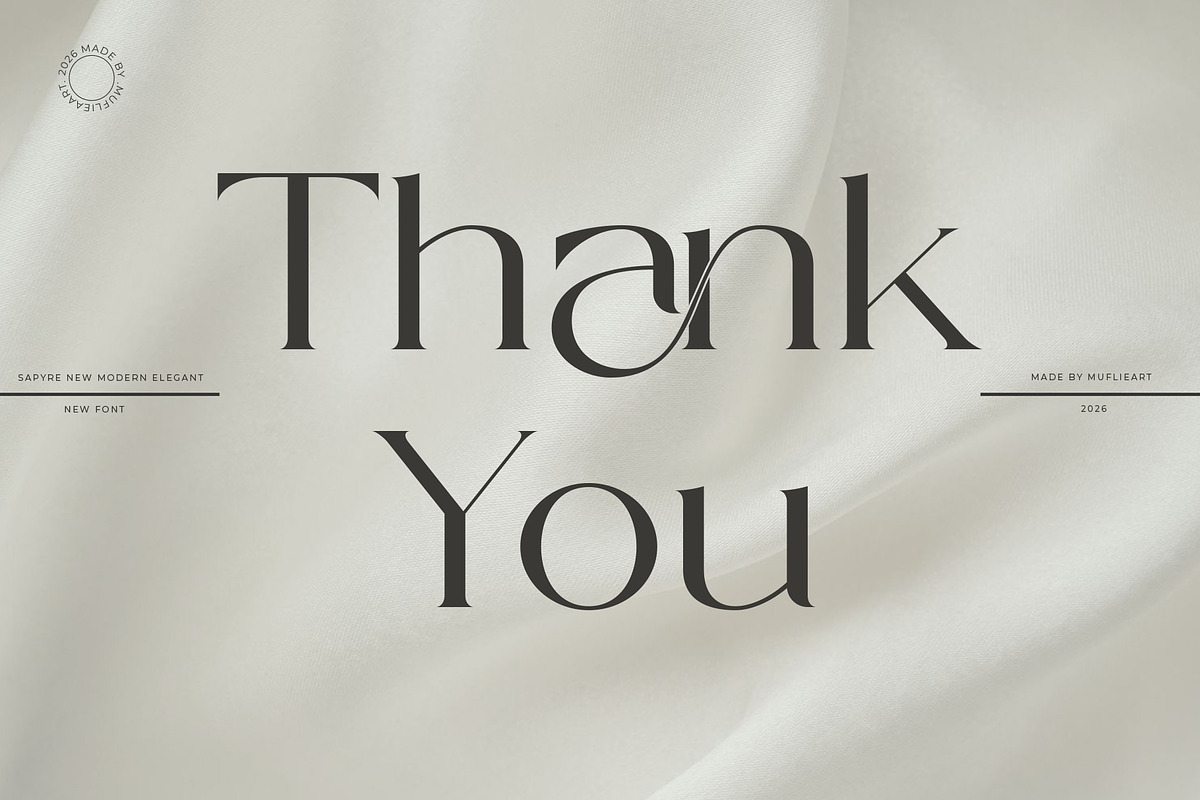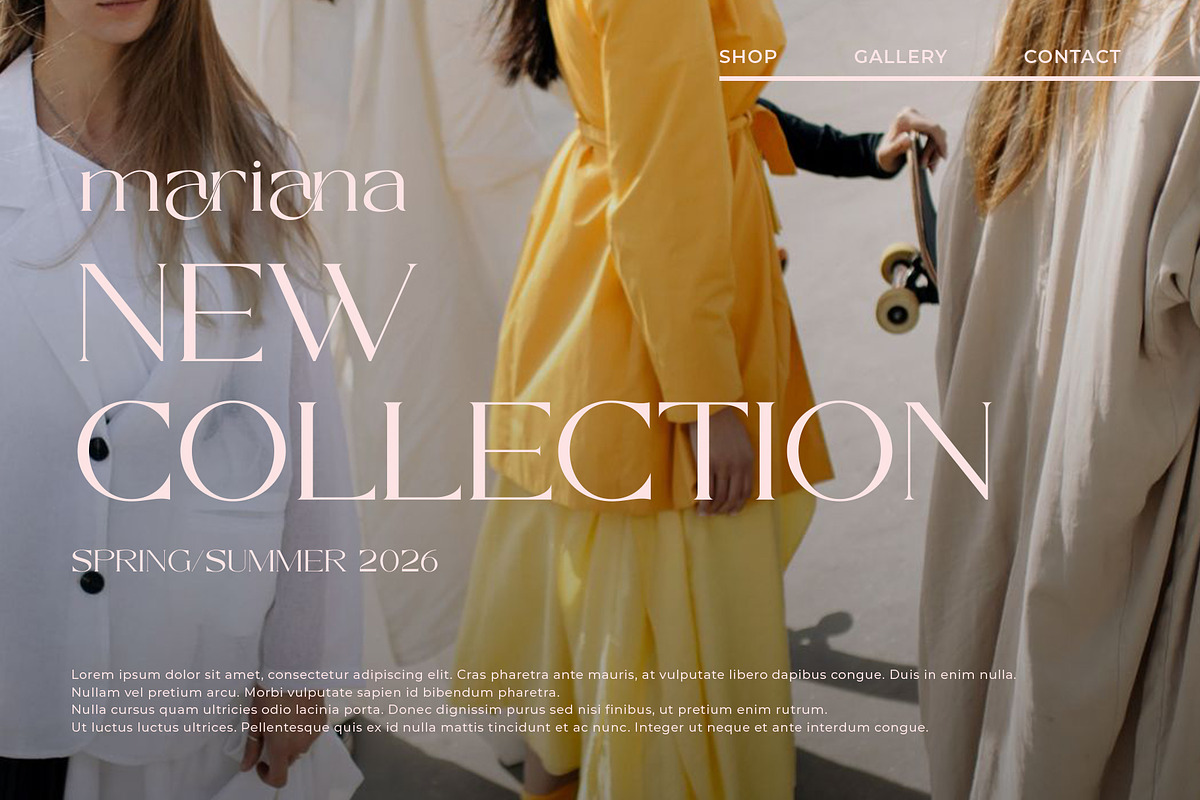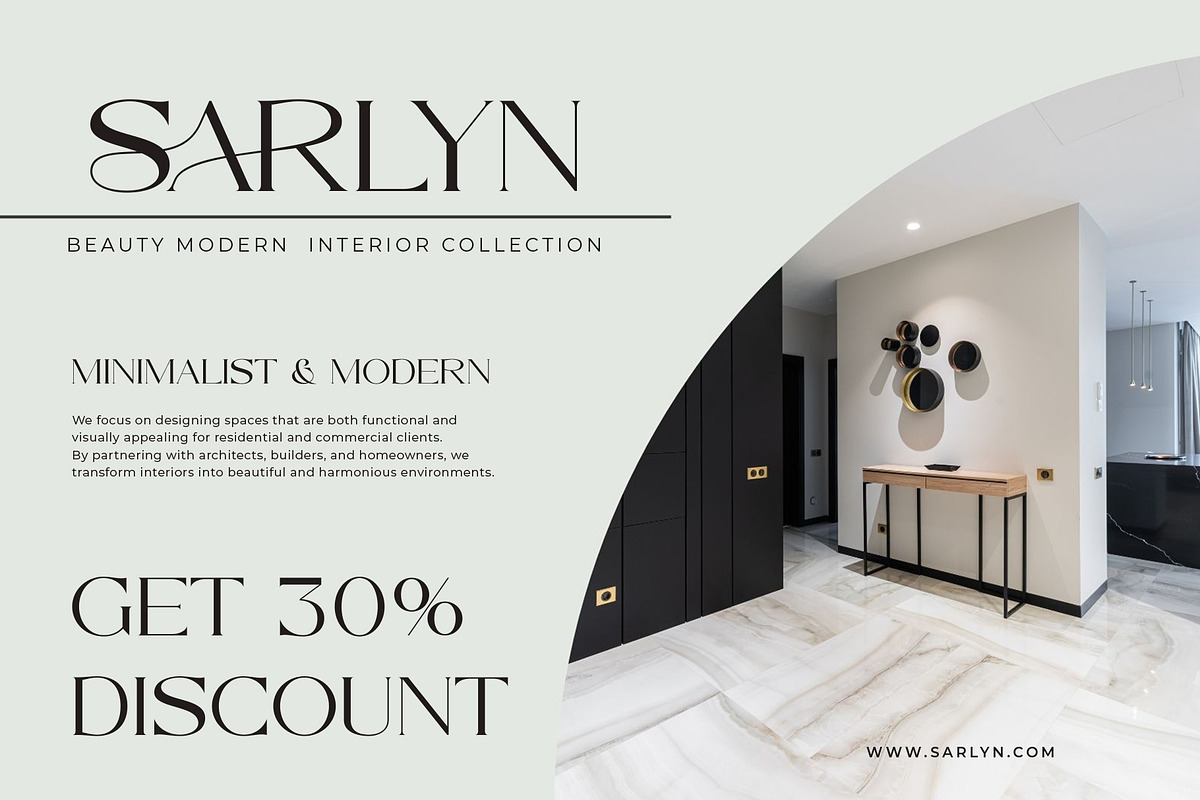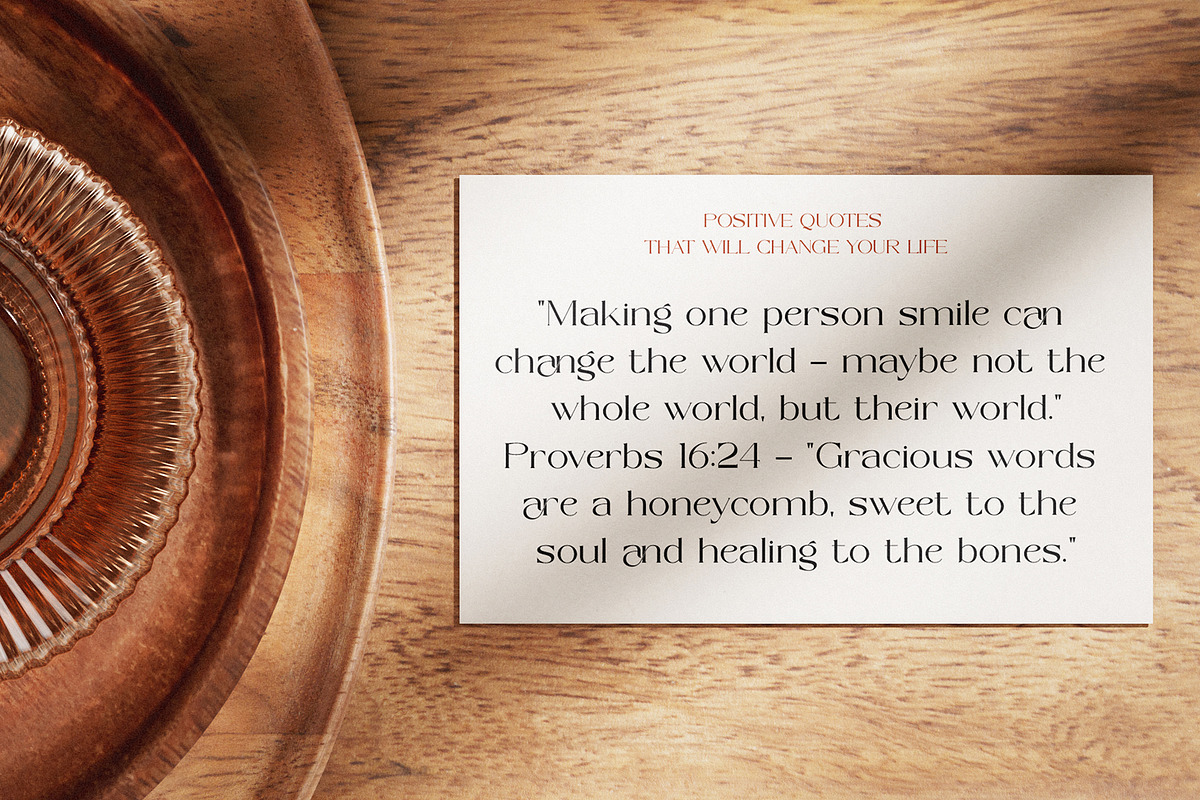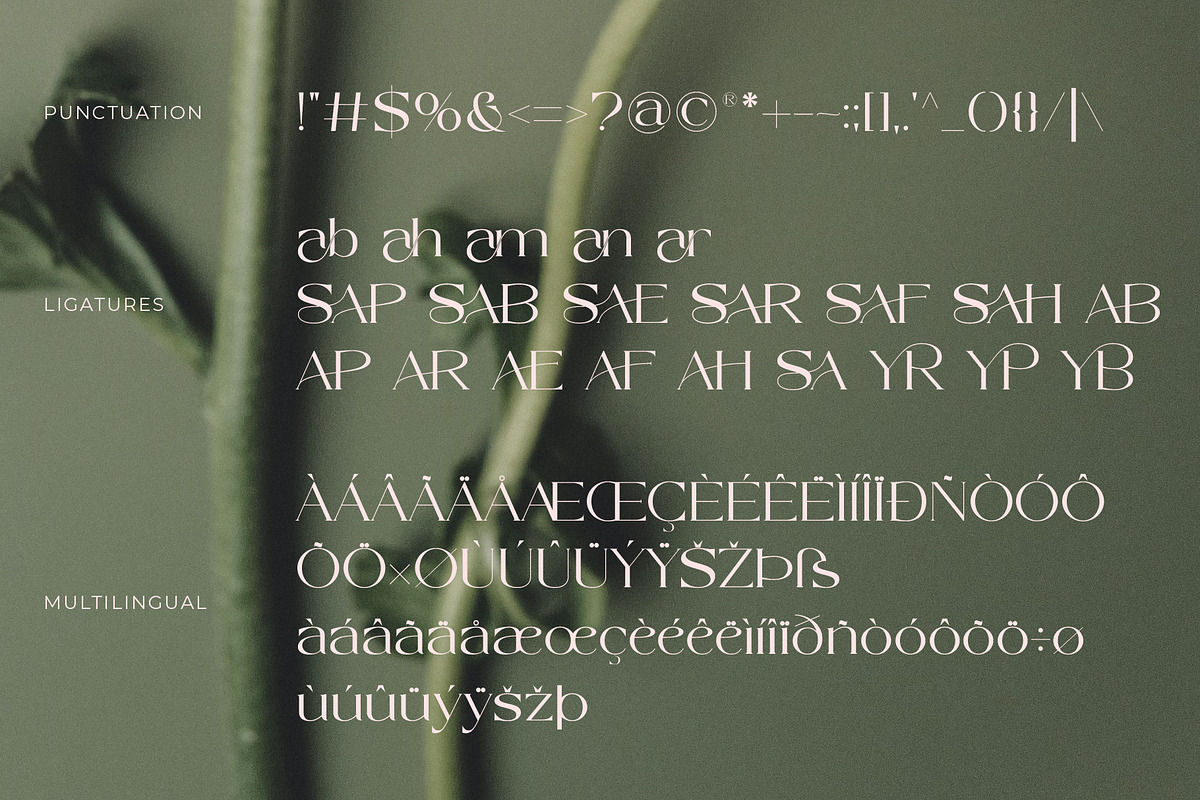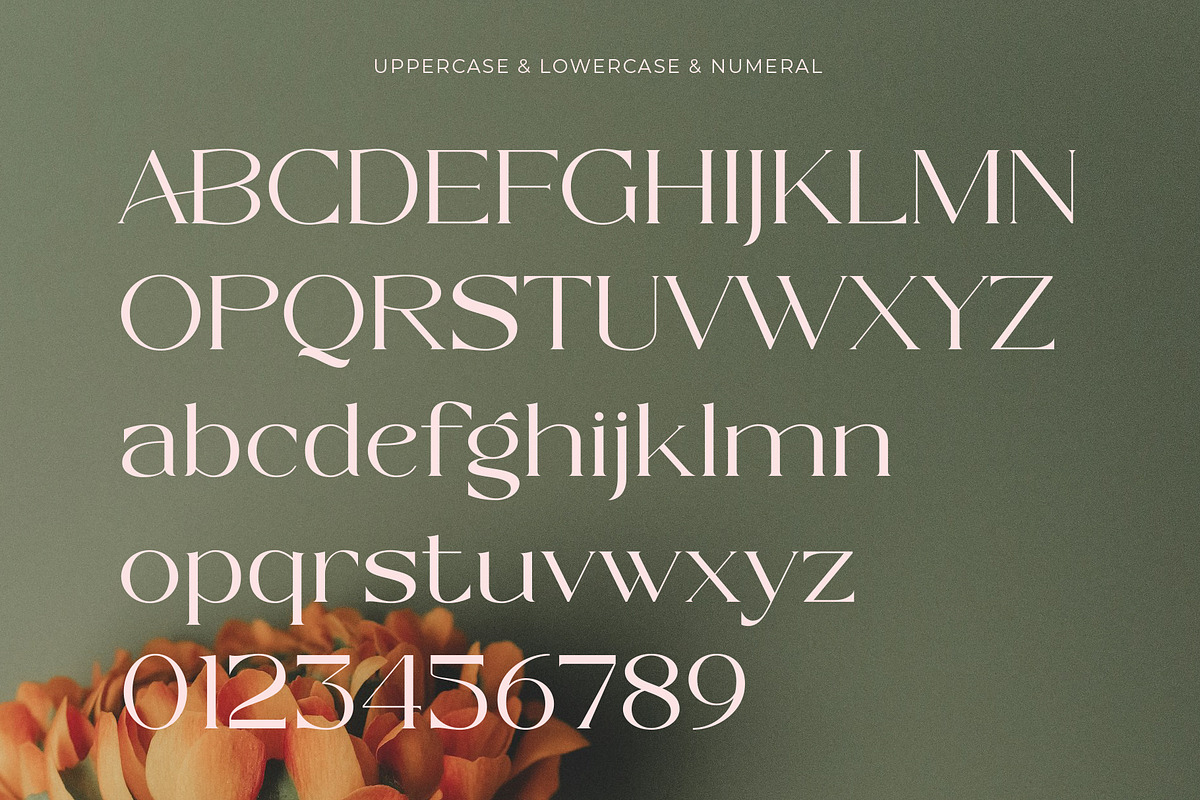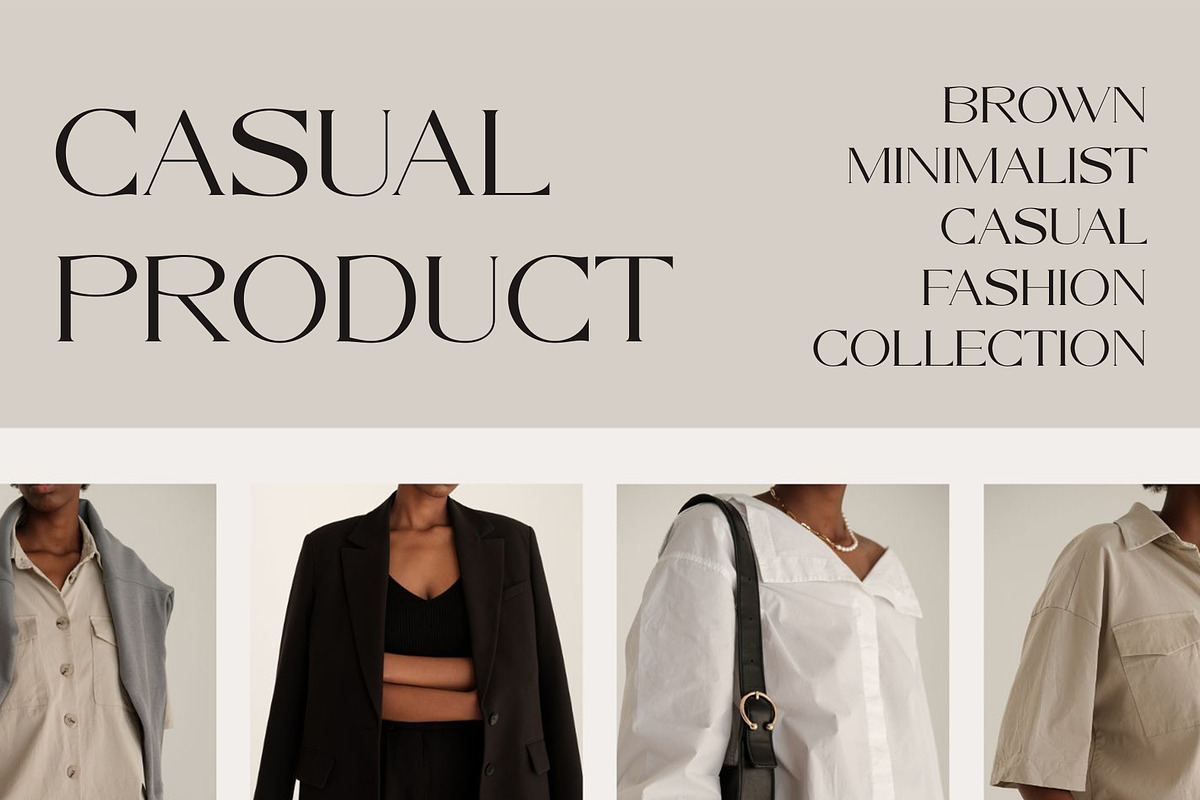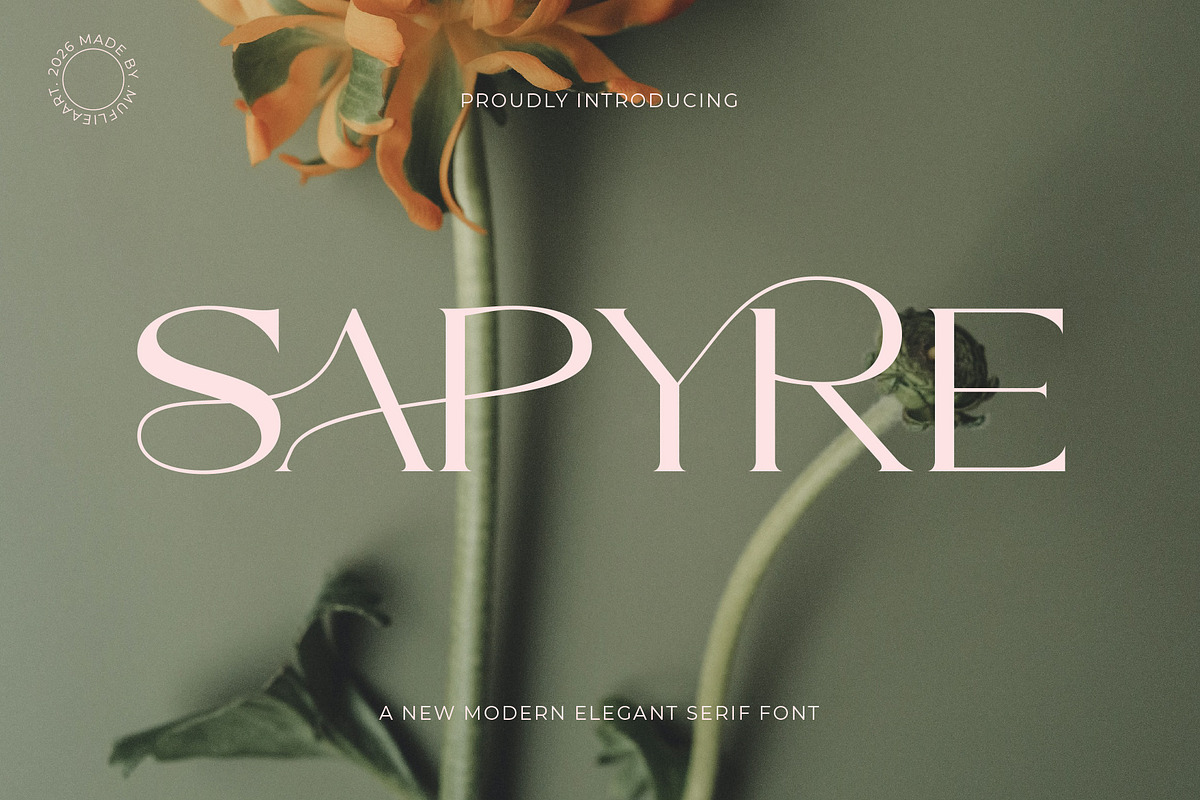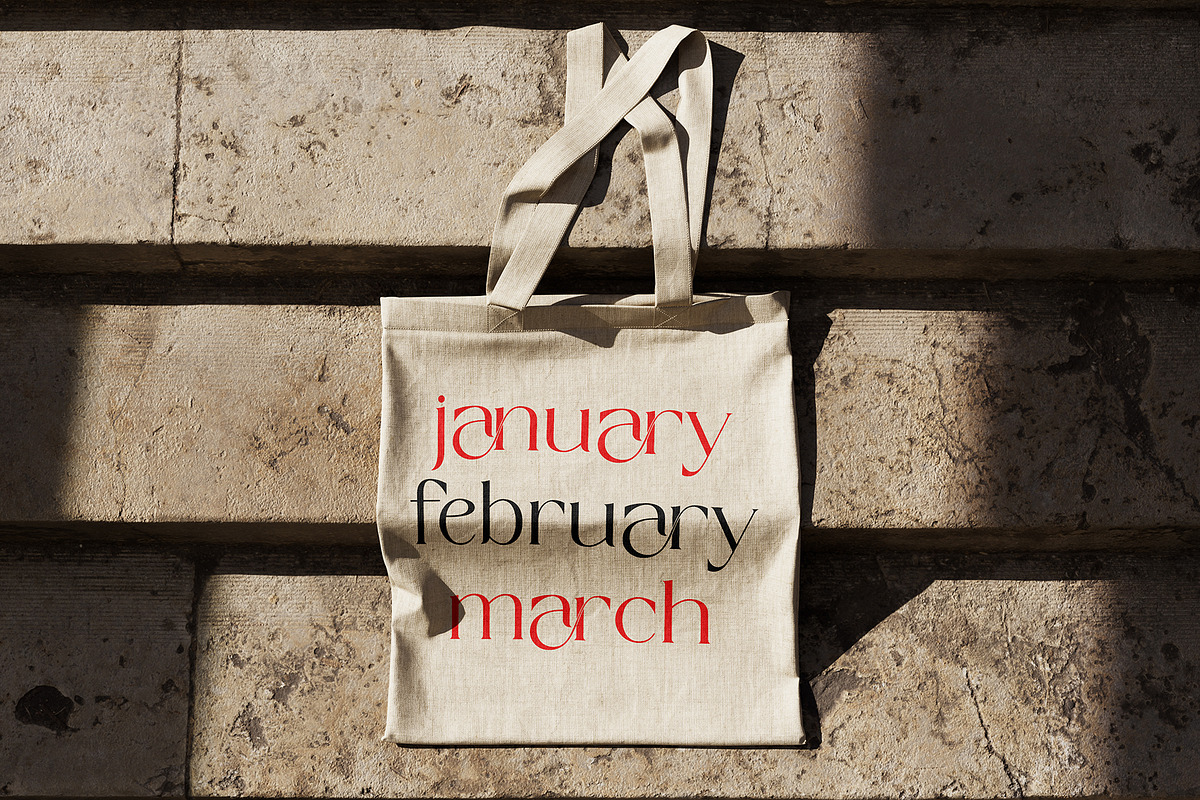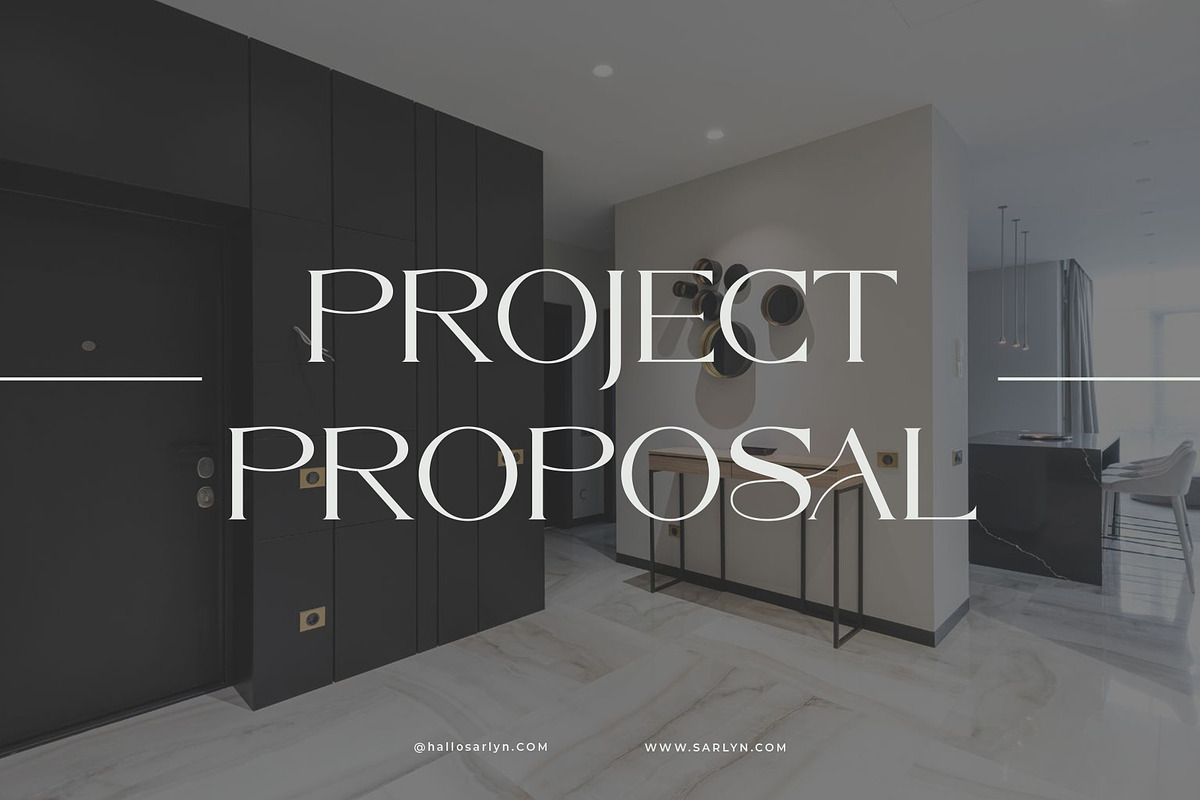
Sapyre - New Modern Elegant Serif
Introducing Sapyre the elegant, beautiful, and modern Serif. With its modern and minimalist look, Sapyre brings a luxurious, classy, and clean style to your projects such as websites, modern logos, brand identities, social media quotes, wedding stationery, magazines, and more!
Sapyre features unique and classy capital letters A to Z and also comes with unique alternates and ligatures making Sapyre a beautiful font that can be customized for various projects and jobs you want.
Sapyre is perfect for: logos, brands, wedding invitations, business cards, greeting cards, posters, magazines, social media, agenda prints, and websites.
- Uppercase and lowercase letters
- Multilingual Characters